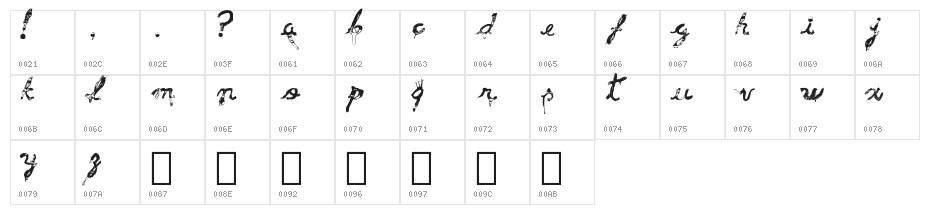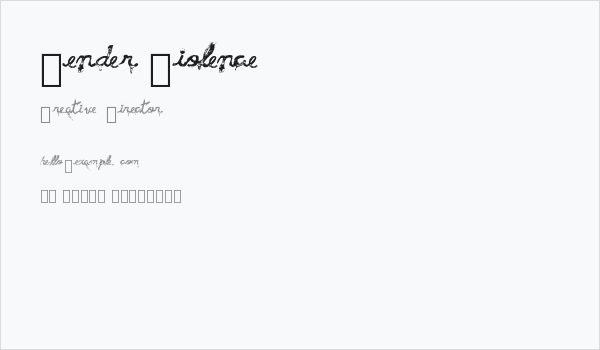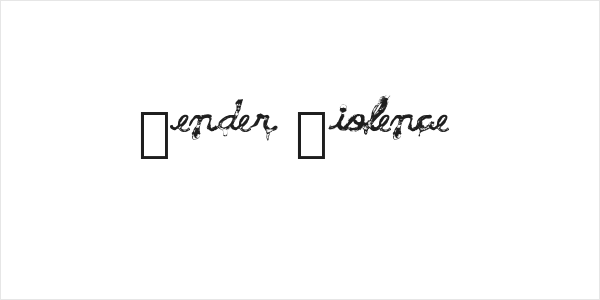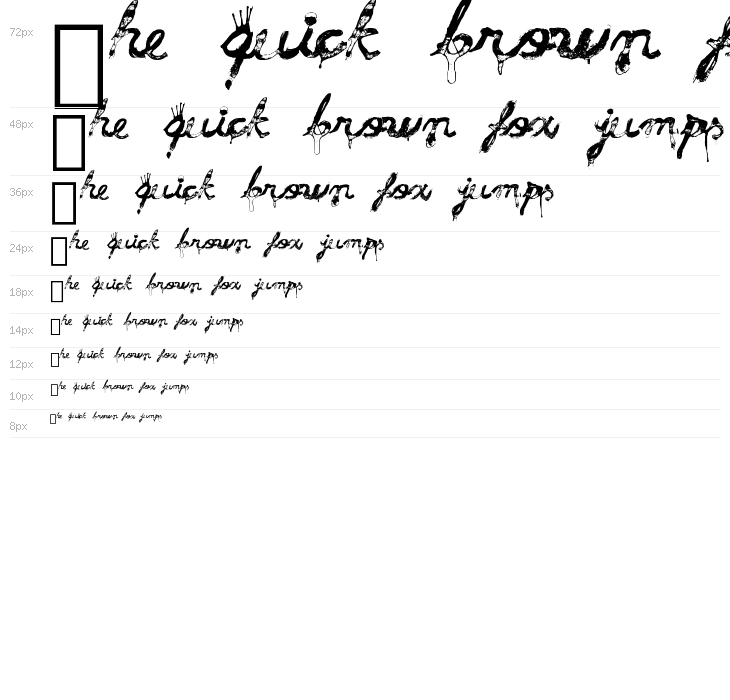
Gender Violence Font
Gender Violence Description
This font features a highly expressive and artistic style, characterized by its dripping, ink-like appearance. The lowercase letters are crafted with a fluid, cursive script that gives a sense of movement and emotion. The strokes are uneven, with splatters and drips that add a raw, edgy feel. This design choice creates a dramatic and intense visual impact, making it suitable for projects that require a strong, emotional expression. The font's unique style captures attention and conveys a sense of urgency and creativity.
Use CaseLogos, Headlines, Artistic projects
Proposed ProjectsIdeal for album covers, protest posters, edgy branding, or artistic projects that require a bold statement.